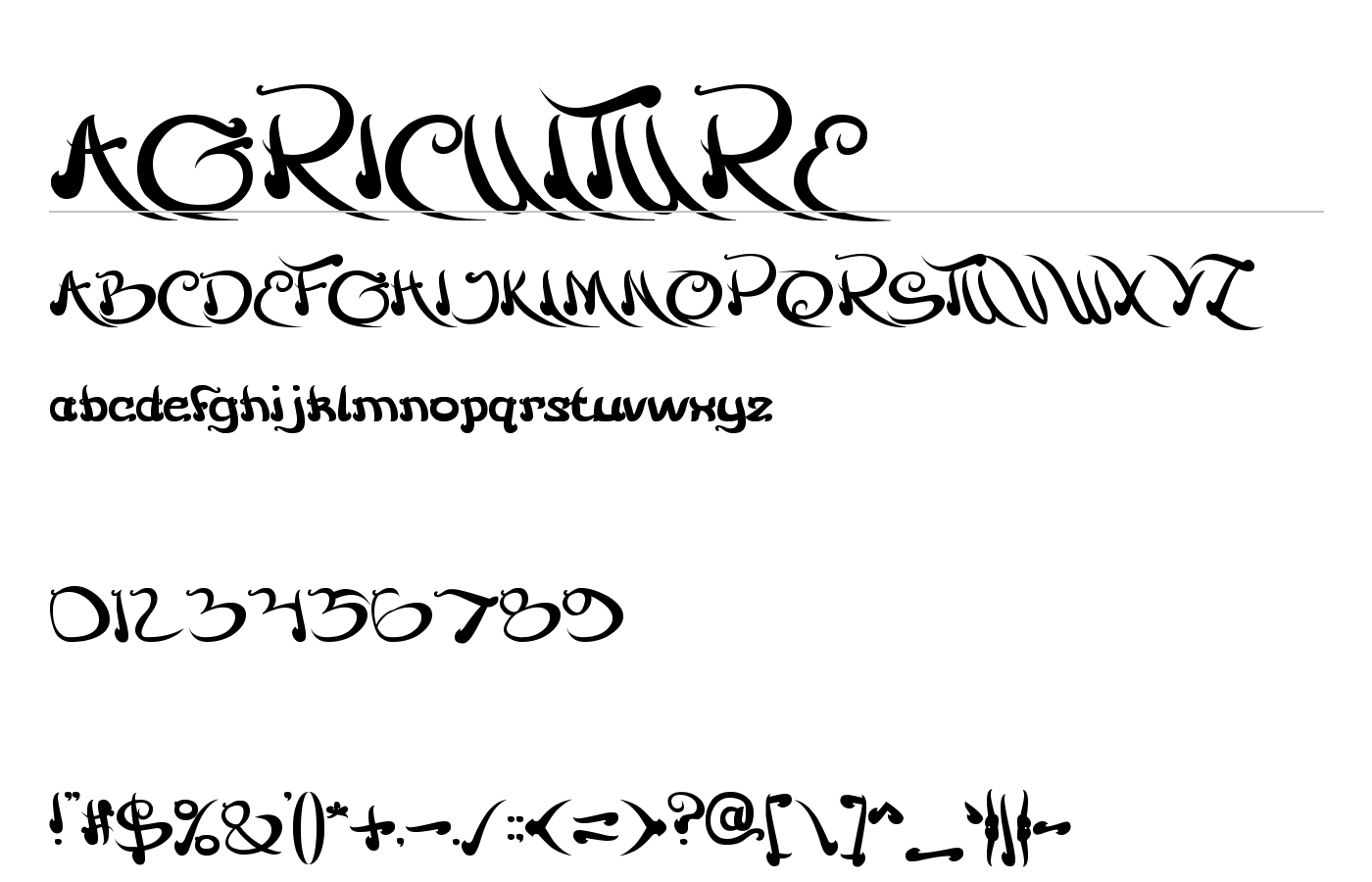
AGRICULTURE is a decorative serif font with a playful, hand-drawn personality characterized by its whimsical swirls and exaggerated stroke endings. Its bold weight, high contrast, and irregular shapes give it a lively, artistic feel, making it perfect for creative branding, packaging, and eye-catching headlines that seek a unique, organic charm. This font works best in display settings where its intricate details can shine and add a touch of individuality.
AGRICULTURE Font
About AGRICULTURE Font